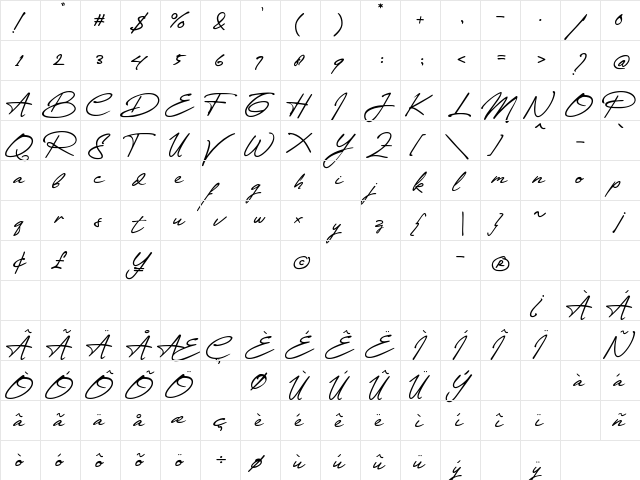
Articha Regular
Design Context for Articha Typeface
Articha is a composed and adaptable typeface that performs quietly and consistently across a wide range of design contexts.